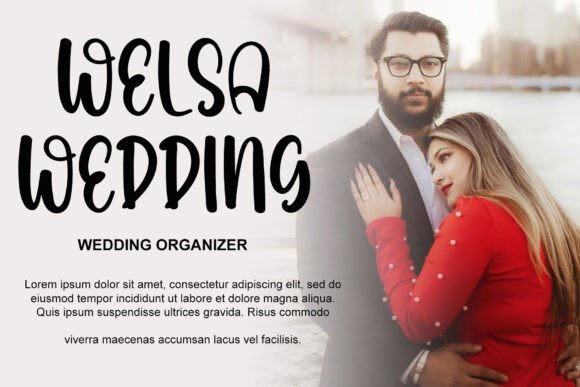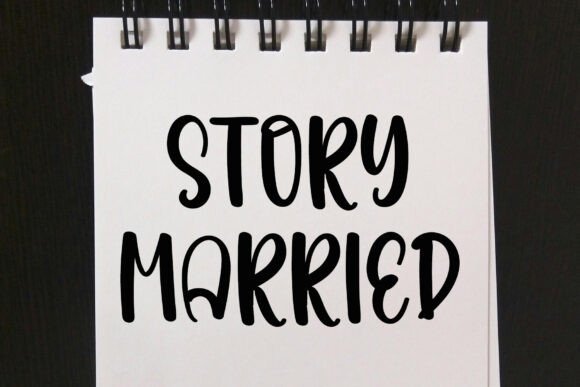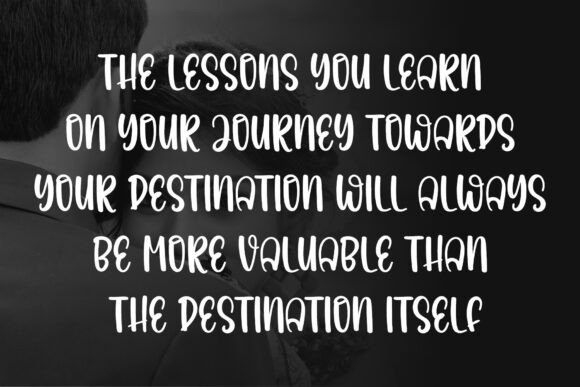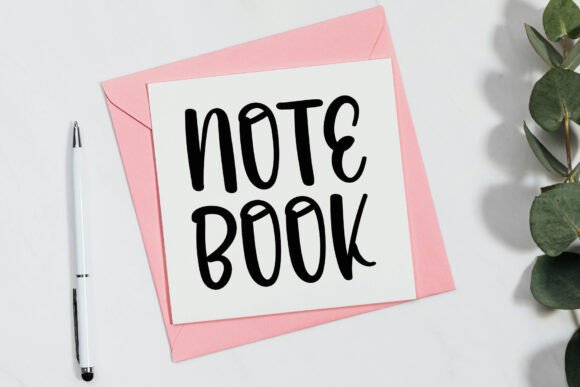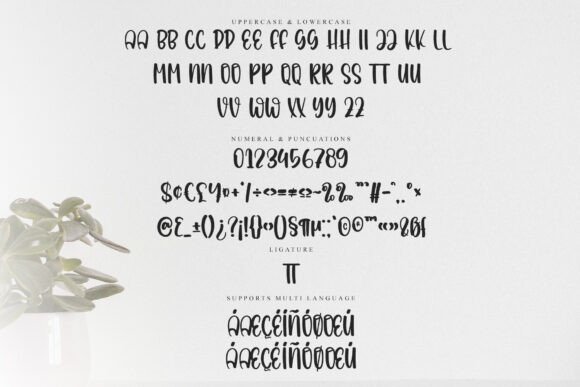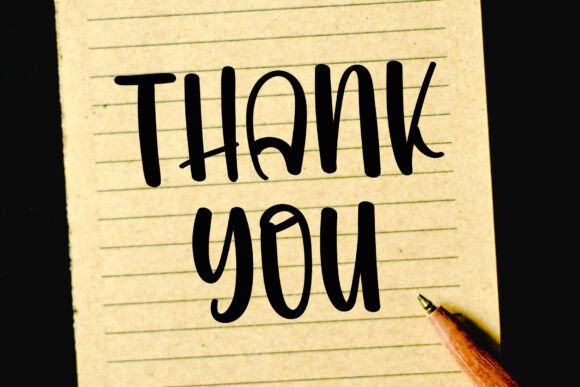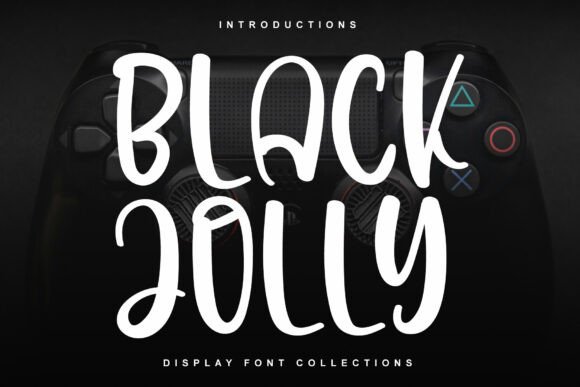
Discover the Elegance of Black Jolly Font: Elevate Your Designs with this Stunning Display Font
Are you a designer, crafter, or DIY enthusiast looking for a font that can add a touch of elegance and sophistication to your projects? Look no further than the Black Jolly Font, a beautiful display font perfect for magazines, crafts, and a wide range of creative endeavors. In this article, we’ll explore the features and benefits of Black Jolly, and show you how to make the most of this lovely font in your designs.
What is Black Jolly Font?
Black Jolly Font is a stunning display font that boasts a unique blend of classic and modern elements. Its elegant lines, curves, and flourishes make it an ideal choice for designers and crafters who want to add a touch of sophistication to their projects. Whether you’re working on a magazine, a craft project, or a digital design, Black Jolly Font is sure to impress.
Key Features of Black Jolly Font
- Beautifully crafted letters: Each letter in the Black Jolly Font has been carefully crafted to ensure that it is both aesthetically pleasing and highly legible.
- Perfect for display purposes: Black Jolly Font is designed specifically for display purposes, making it ideal for headlines, titles, and other prominent text elements.
- Supports multiple languages: Black Jolly Font supports a wide range of languages, making it a versatile choice for designers and crafters working on international projects.
- Easily customizable: Black Jolly Font can be easily customized to suit your design needs, allowing you to adjust the font size, color, and style to match your brand or project’s aesthetic.
Why Choose Black Jolly Font?
So why should you choose Black Jolly Font for your next project? Here are just a few reasons why this font stands out from the crowd:
- Unique and eye-catching: Black Jolly Font is a unique and eye-catching font that is sure to grab attention and leave a lasting impression on your audience.
- Highly versatile: Black Jolly Font can be used for a wide range of projects, from magazines and crafts to digital designs and branding.
How to Use Black Jolly Font in Your Designs
Using Black Jolly Font in your designs is easy. Here are a few tips to get you started:
- Pair it with other fonts: Black Jolly Font pairs well with a wide range of other fonts, allowing you to create visually interesting and dynamic designs.
- Experiment with different colors: Black Jolly Font looks great in a variety of colors, so don’t be afraid to experiment and find the perfect color to match your brand or project’s aesthetic.
- Use it for headlines and titles: Black Jolly Font is perfect for headlines and titles, where its elegant lines and curves can really shine.
In conclusion, Black Jolly Font is a beautiful display font that is perfect for designers, crafters, and DIY enthusiasts who want to add a touch of elegance and sophistication to their projects. With its unique blend of classic and modern elements, highly legible letters, and versatility, Black Jolly Font is an excellent choice for a wide range of creative endeavors. So why wait? Add Black Jolly Font to your font library today and start creating spectacular designs that will leave a lasting impression on your audience!
Black Jolly is a beautiful display lovely font perfect for magazines and crafts. Add it to your fonts library, and use it to create spectacular designs!